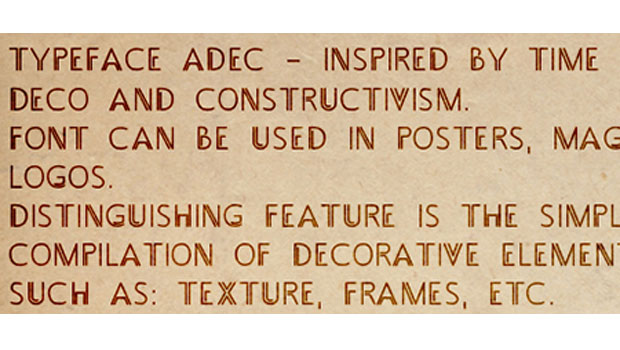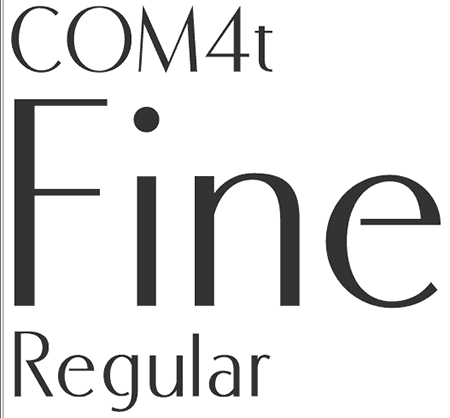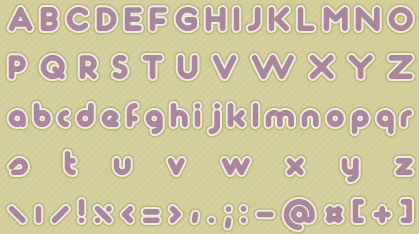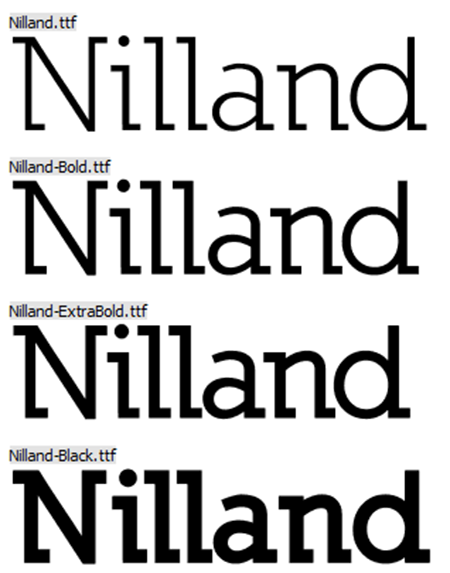
Free For All: ?Free Fonts Galore (Part 1)
It’s been a while since Free for All visited our crowd-favorite category of freebies—fonts. As my way of making up for the length of time, here’s the first of two all-free-font Free for All installments. Come back next month for even more free font goodies!
Body Copy and Headline
These typefaces have the clean legibility required for use in high density such as in body copy, or they’re suited for large-size display in headlines.
WhoopAss
Grimy, worn, torn, and stepped on best describe the feeling evoked by grunge typefaces, making them perfect for any project that isn’t gleaming, new, refined, or uppercrust.
Handwritten & Handdrawn Fonts
Nothing conveys that personal, homemade touch quite like handdrawn type and fonts created directly from real people’s handwriting.
Symbols and Dingbats
The irony of symbols and dingbats presented in font form is that a pictogram is often worth a thousand words.
Eclectics
The following assortment isn’t easily sorted into the other classifications, so I’ve made them their own little group.